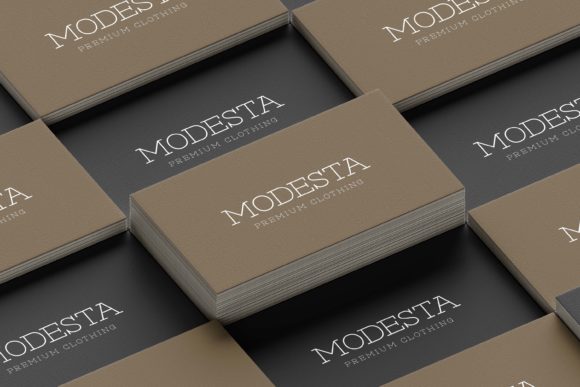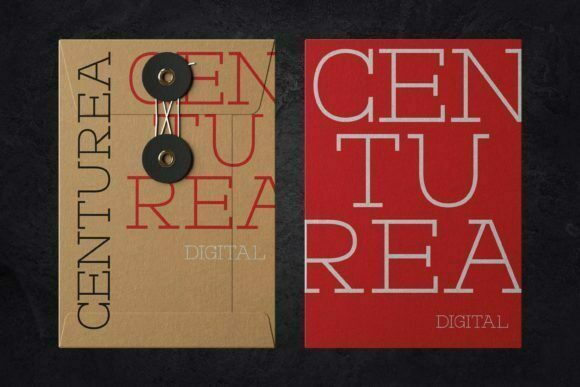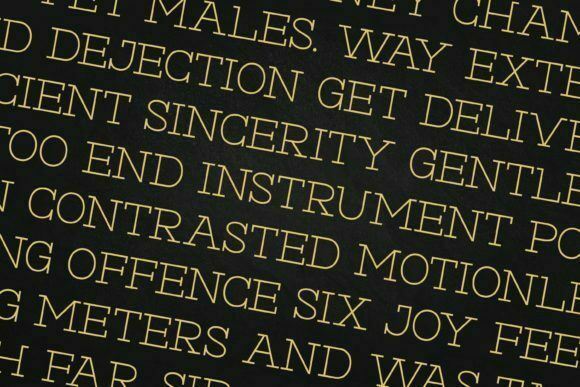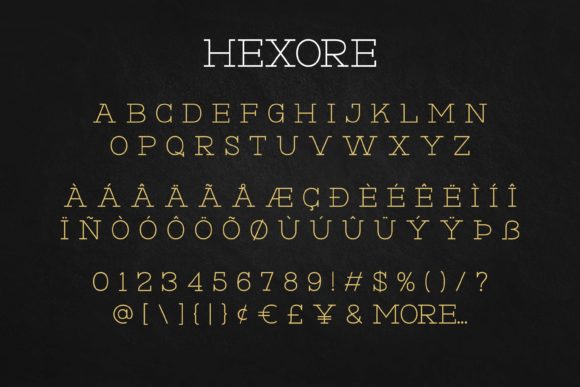
Hexore Font
HEXORE FONT SPECIMEN
Hexore is a modern slab serif font. Modern and luxurious, this font will look lovely on a variety of design ideas. Add it to your most creative ideas and notice how it makes them come alive!